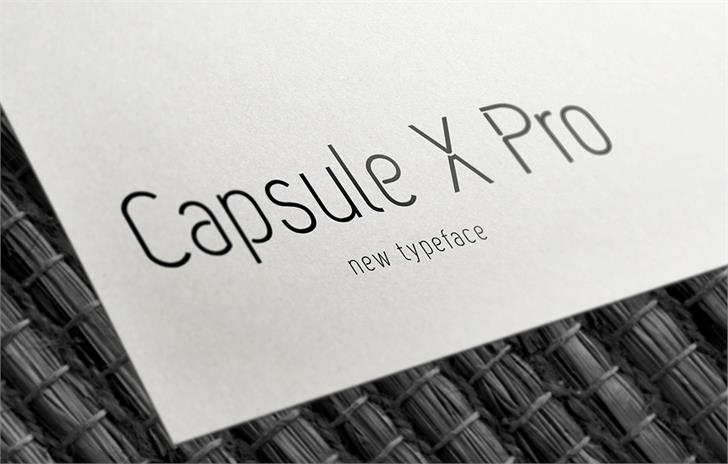
Free Capsule X Pro Medium Font
Download and enjoy this free capsule x pro medium font. Cool typeface to showcase your designs in a modern way. Download this free typeface from the original source of Font Space. Showcase your designs like a graphic design pro by adding a new touch with this beautiful font.